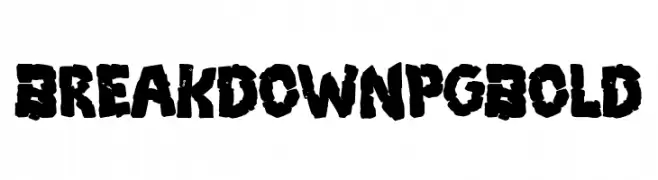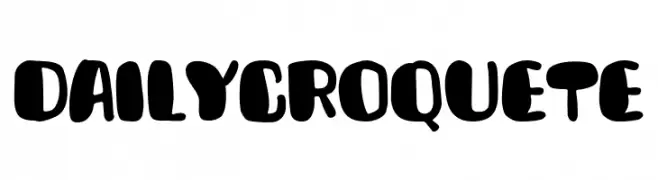
( Fonts by PressGang Studios )
Bold, fragmented display font with a distressed look.
( Fonts by PressGang Studios )
Bold, distressed font with a grunge style.
( Fonts by PressGang Studios )
Bold, italic, fragmented decorative font.
( Fonts by Yoga Letter )
Gothic-style font with bold, angular strokes.
( Fonts by Hardtype )
Playful, bubbly font with thick strokes.
( Fonts by Eko Bimantara )
Playful, bubble-like hand-drawn font.
( Fonts by Yoga Letter )
Bold graffiti-style font with sharp angles.
( Fonts by Eko Bimantara )
Bold, playful, and whimsical font.
( Fonts by Yoga Letter )
Bold, angular gothic-style font.
( Fonts by Cikareotype Studio )
Graffiti-style, bold, handwritten font.